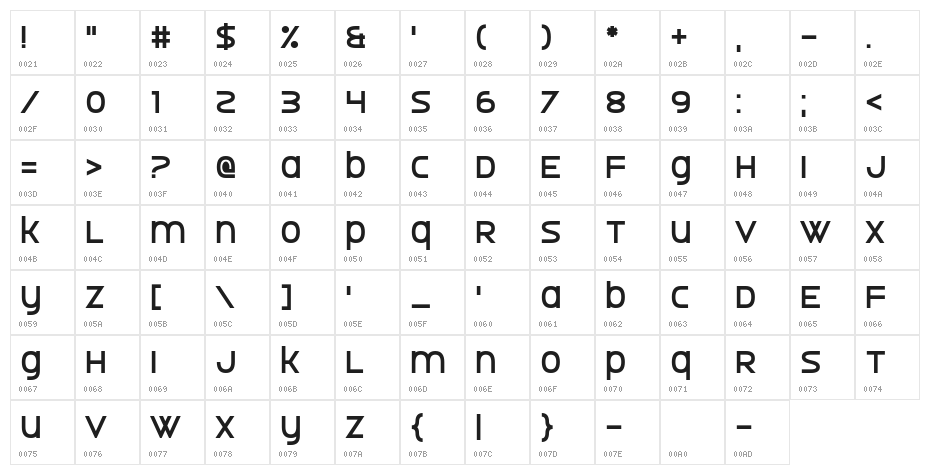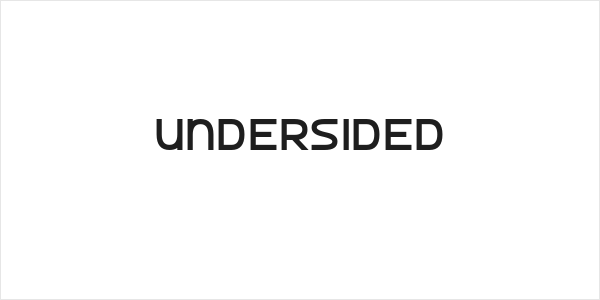
Undersided Font
Undersided Description
This font features a modern and clean design with a geometric structure. The characters are well-defined with a uniform stroke width, giving it a balanced and harmonious appearance. The uppercase and lowercase letters maintain a consistent style, with rounded edges and a slight curvature that adds a touch of softness to the overall look. The numerals are clear and legible, making them suitable for various applications. Special characters are distinct and integrate seamlessly with the rest of the font, ensuring versatility in design projects.
| Use Case | Headlines, Body text, Logos |
| Proposed Projects | Ideal for branding, digital interfaces, signage, and editorial design. |